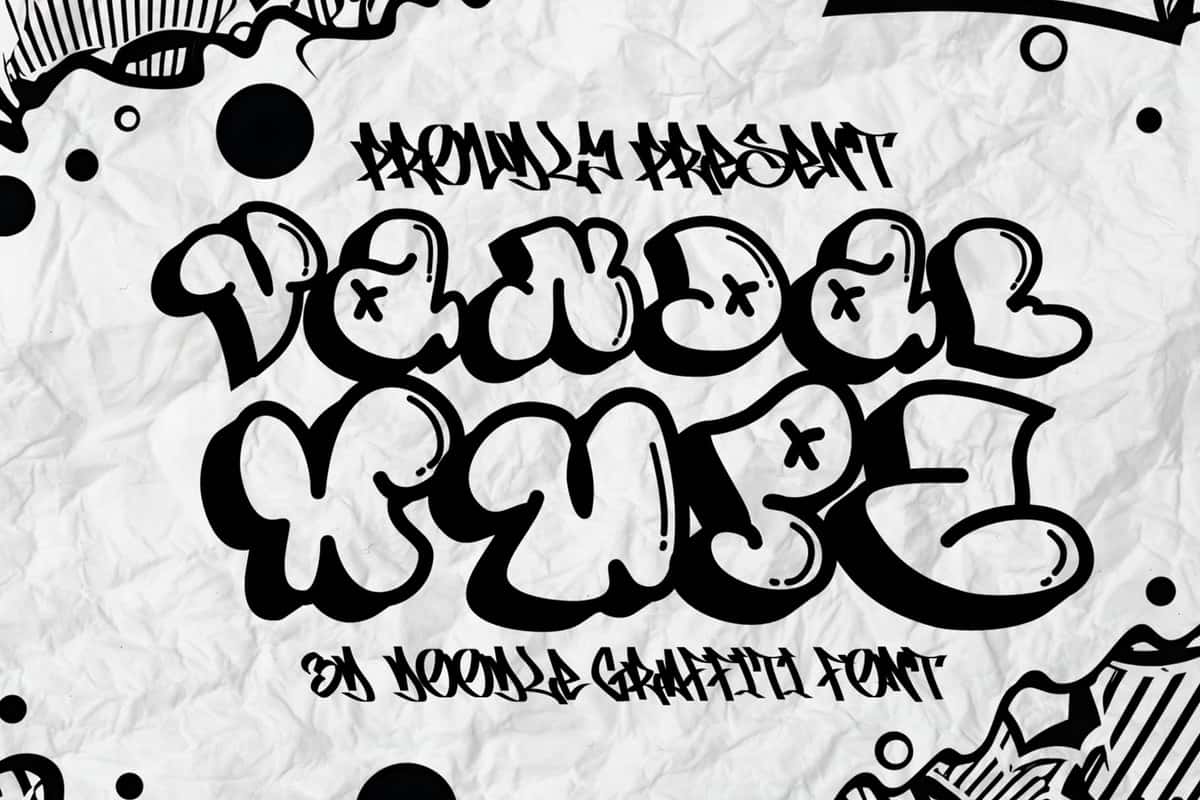
Vandal Wupz
Introducing Vandal Wupz – the ultimate Doodle Graffiti Font that infuses your designs with playful energy and urban edge. This unique font combines the spontaneity of doodles with the rawness of graffiti, making it perfect for projects that need a bold, creative, and eye-catching touch.